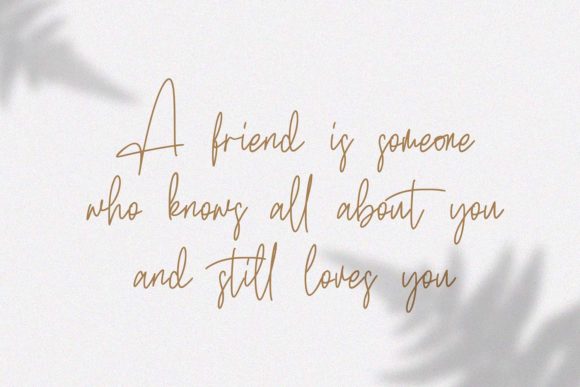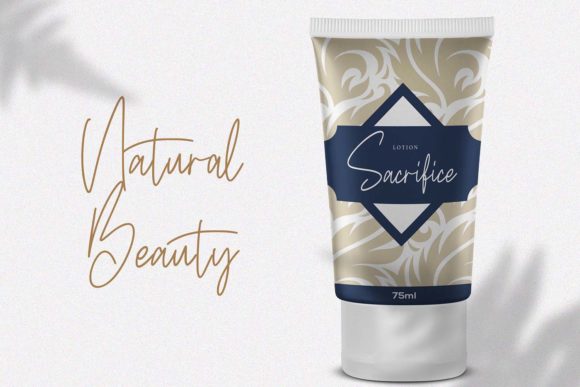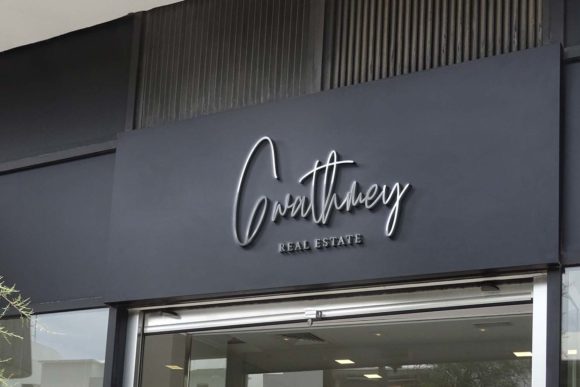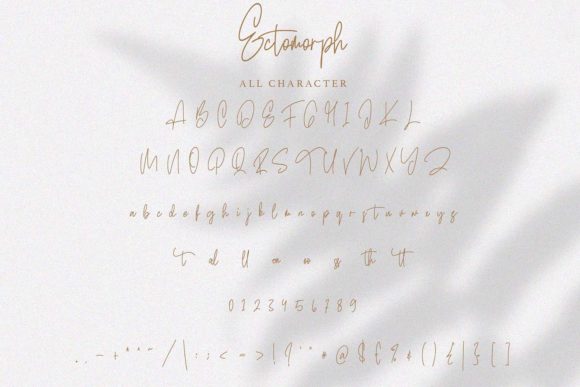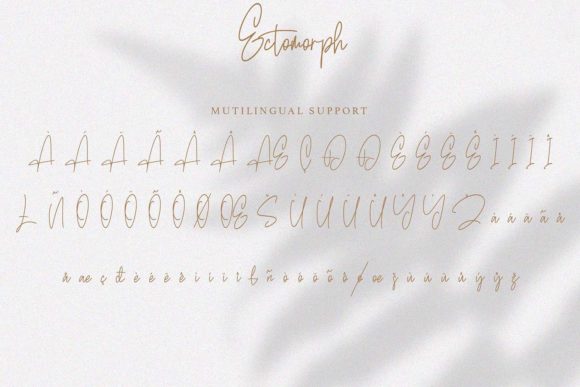
Ectomorph Font: The Ultimate Handwritten Font for Your Design Needs
Are you tired of using the same old fonts in your designs? Look no further than Ectomorph, a relaxed and timeless handwritten font that’s incredibly versatile and perfect for a wide variety of projects. In this article, we’ll dive into the world of Ectomorph and explore its features, benefits, and uses, helping you to make the most of this amazing font.
What is Ectomorph Font?
Ectomorph is a beautifully crafted handwritten font that’s designed to bring a touch of personality and warmth to your designs. With its relaxed and effortless feel, Ectomorph is perfect for creating a wide range of projects, from branding and advertising to packaging and digital media. Whether you’re a designer, craftsperson, or simply a DIY enthusiast, Ectomorph is an excellent choice for adding a personal touch to your work.
Key Features of Ectomorph Font
- Relaxed and Timeless Design: Ectomorph boasts a beautifully crafted design that’s both relaxed and timeless, making it perfect for creating designs that are both modern and classic.
- Incredibly Versatile: Ectomorph is an incredibly versatile font that fits a wide variety of designs, from elegant and sophisticated to playful and fun.
- Handwritten Style: Ectomorph’s handwritten style adds a personal touch to your designs, making them stand out from the crowd and giving them a unique feel.
- Easy to Read: Ectomorph is designed to be easy to read, making it perfect for use in body text, headings, and titles.
Benefits of Using Ectomorph Font
So why choose Ectomorph for your design needs? Here are just a few benefits of using this amazing font:
- Adds Personality to Your Designs: Ectomorph’s unique and handwritten style adds a personal touch to your designs, helping them to stand out from the crowd.
- Perfect for Branding and Advertising: Ectomorph is perfect for use in branding and advertising, helping to create a unique and memorable identity for your business or product.
- Great for Digital Media: Ectomorph is optimized for use in digital media, making it perfect for use in websites, social media, and other online platforms.
Uses of Ectomorph Font
Ectomorph is an incredibly versatile font that can be used in a wide range of projects and applications. Here are just a few ideas to get you started:
- Branding and Advertising: Use Ectomorph to create a unique and memorable identity for your business or product.
- Packaging Design: Add a personal touch to your packaging designs with Ectomorph’s handwritten style.
- Digital Media: Use Ectomorph in your website, social media, and other online platforms to add a touch of personality to your digital presence.
- Stationery and Invitations: Use Ectomorph to create beautiful and unique stationery and invitations.
In conclusion, Ectomorph is an amazing font that’s perfect for designers, craftspersons, and DIY enthusiasts alike. With its relaxed and timeless design, incredibly versatile style, and easy-to-use features, Ectomorph is an excellent choice for adding a personal touch to your designs. Whether you’re creating branding and advertising materials, packaging designs, or digital media, Ectomorph is the perfect font for your needs.